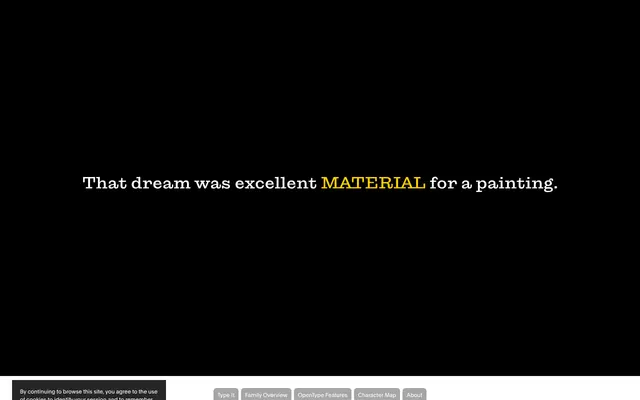
Material
A contemporary slab-serif by Nicolas Eigenheer and Niklas Herrmann, redrawn from a Bauer Foundry Egyptienne for text and display.
A slab-serif by Nicolas Eigenheer, originally drawn from Breite fette Egyptienne, a Bauer Foundry revival of Vincent Figgins's Antique that traces back to early 19th century attention-commanding posters. Two decades after the first drawing, Eigenheer and Niklas Herrmann redrew the family, stripping it back to its essential forms and adding nuanced intermediate styles so it works at small sizes as well as large display settings. Five weights from Thin to Black with italics and an Upright Variable and full Variable.
Optimo describes Material as a contemporary slab-serif inspired by Breite fette Egyptienne from the Bauer Foundry, itself a revival of Vincent Figgins's Antique, redrawn into a versatile multipurpose family with Niklas Herrmann.